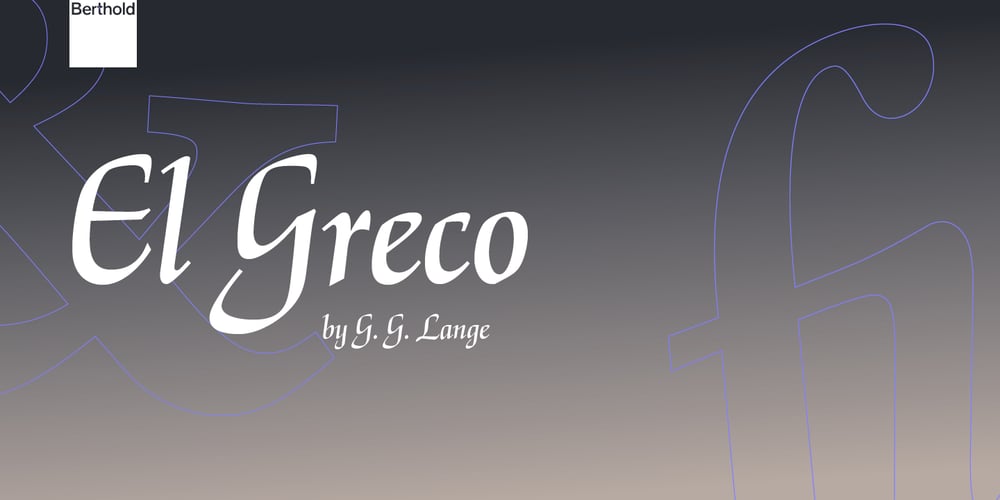
El Greco Font Family was designed by Günter Gerhard Lange and published by Berthold. El Greco contains 1 styles and family package options. Günter Gerhard Lange designed El Greco for Berthold in 1964. This script dresses up informal documents and adds lightness to formal documents.